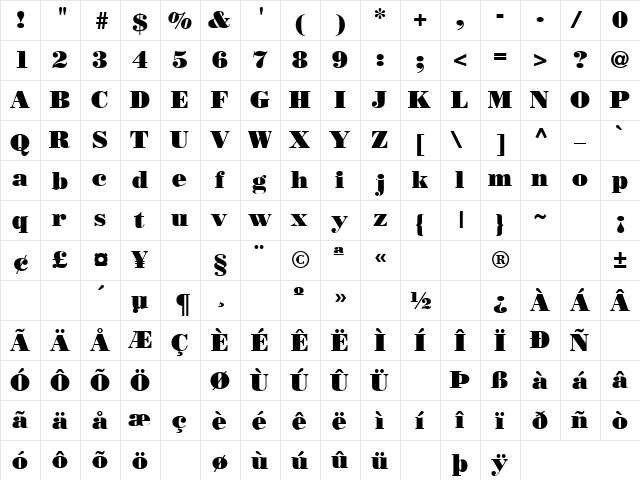
Controversy 1 Regular
Design Context for Controversy 1 Typeface
Controversy 1 offers clean, dependable letterforms without strong stylistic allegiance, making it a practical choice for designers who need flexibility.